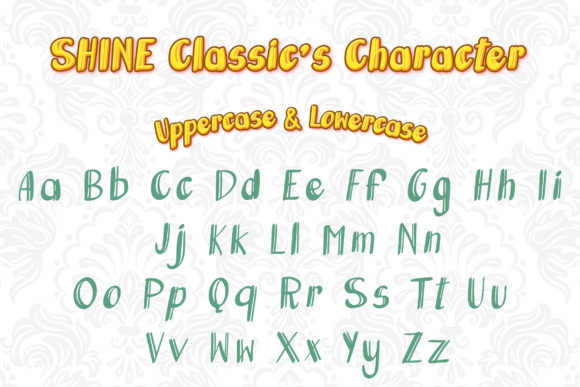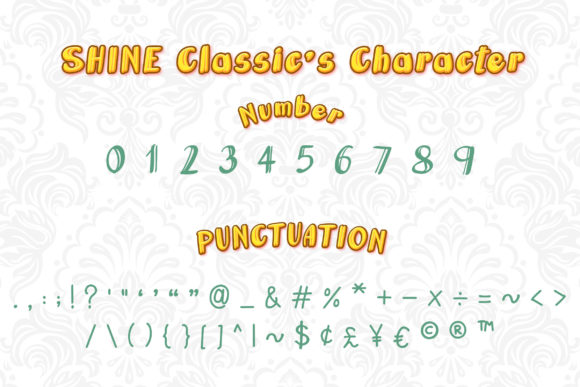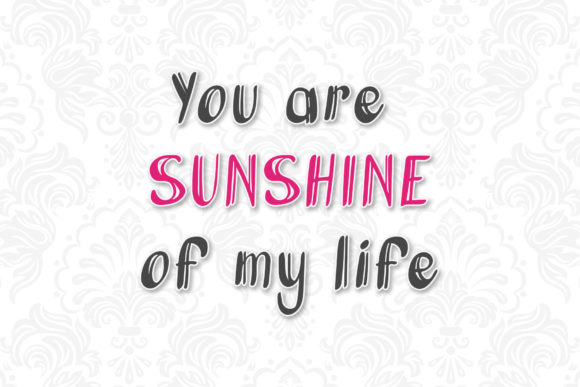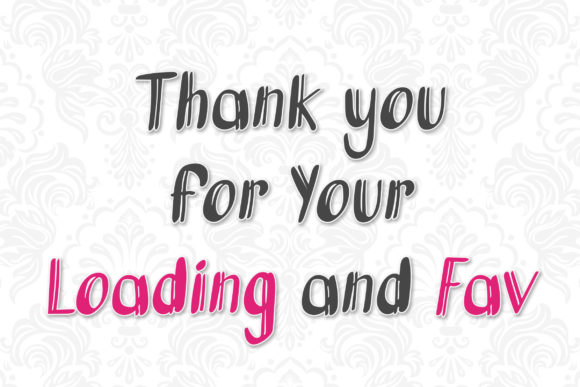
Introduction to Shine Classic Font
Shine Classic is a sweet and casual handwritten font.
Its friendly feel makes this font incredibly versatile, fitting a wide range of contexts Add it to your creative ideas and notice how it makes them stand out.
Key Features of Shine Classic Font
Why Choose Shine Classic Font?
Shine Classic Font offers exceptional quality and versatility, making it a valuable addition to your design toolkit. Whether you’re creating for personal projects or commercial use, Shine Classic Font delivers professional results.